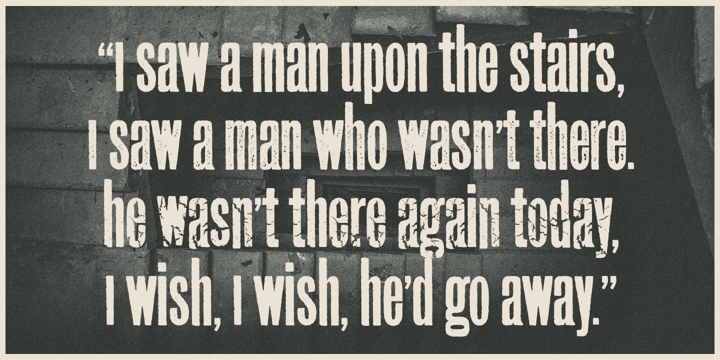
Prison AOE™
by Astigmatic
The Prison AOE Font Family was designed by Brian J. Bonislawsky and published by Astigmatic. Prison AOE contains 9 styles and family package options.
An antique letterpress typeface digitally recreated with various grunge variations for a versatile font family. The Prison Pro Family OpenType versions contain an expanded language set, limitless fractionals, superiors, inferiors, tabular & proportional figures, and ordinal characters to properly type options like 1st, 2nd, 3rd, etc. The Contextual Alternates feature enables the Faux Unicase look of the original family unicase, while the Stylistic Alternates feature enables a True Unicase (without ascending characters). The original 6 font family compiled into three Opentype fonts, with much more functionality than the originals.
Designers: Brian J. Bonislawsky
Publisher: Astigmatic
Foundry: Astigmatic